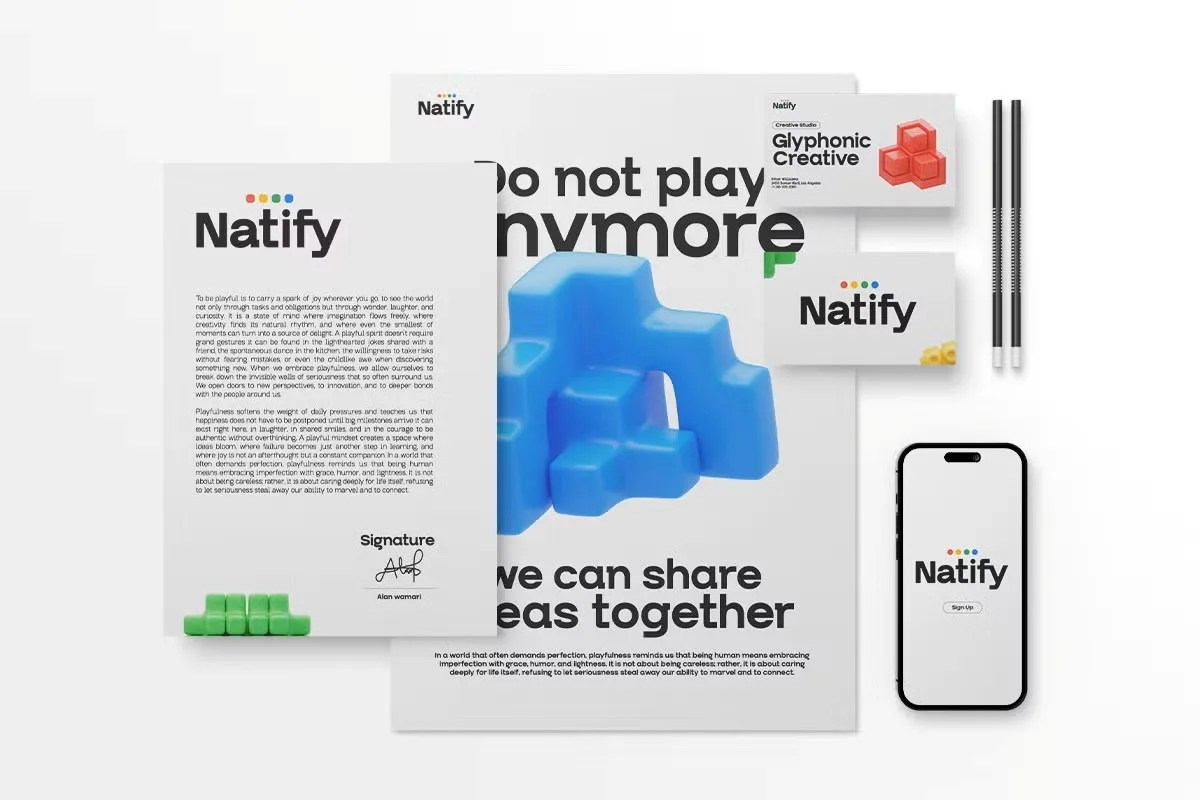
Natify by Glyphonic. This is a clean, versatile, and highly functional modern sans serif font designed for clarity. Its aesthetic is rooted in neutrality and simplicity. This makes it an incredibly adaptable tool for a wide range of design projects. Natify doesn’t shout for attention. Instead, it provides a calm and clear foundation for your content to shine. It is the perfect choice for designers who need a reliable workhorse font that looks professional in any context.
Natify is built on a solid geometric framework. This gives it a sense of stability and order. However, the design incorporates subtle, soft curves that prevent it from feeling sterile or overly corporate. As a result, the font is both professional and friendly. Its primary strength is its exceptional readability. The characters have open counters and generous spacing. Consequently, Natify remains perfectly legible on screens, which makes it an outstanding choice for digital applications. It communicates with an effortless and natural voice.
• Clean and versatile sans serif style
• Features a neutral yet friendly aesthetic
• Excellent for UI/UX, branding, and body text
• Highly readable on both screen and print